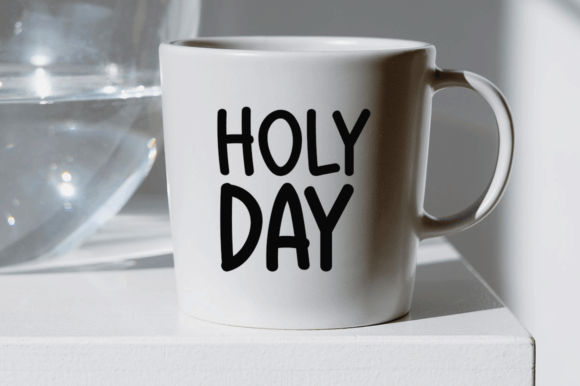
Dreaming Christmas Font: Elevate Your Holiday Projects with a Simple yet Stunning Typeface
As the holiday season approaches, designers and crafters are on the lookout for the perfect font to add a touch of festive magic to their projects. If you’re searching for a font that’s both simple and stunning, look no further than the Dreaming Christmas font. This beautiful, simple-lettered display font is designed to make your creative ideas stand out, and in this article, we’ll explore why it’s the perfect choice for your holiday projects.
What is Dreaming Christmas Font?
Dreaming Christmas font is a typeface designed specifically for the holiday season. Its simple, yet elegant lettering makes it perfect for a wide range of projects, from holiday cards and invitations to festive posters and social media graphics. The font’s clean lines and classic design ensure that it can be paired with a variety of styles, making it incredibly versatile.
Key Features of Dreaming Christmas Font
- Simple and Elegant Design: The Dreaming Christmas font boasts a simple, yet sophisticated design that exudes holiday cheer.
- Highly Versatile: This font can be used for a wide range of projects, from digital designs to print materials.
- Easy to Read: The clean lines and classic design of the font make it easy to read, even at smaller sizes.
- Perfect for Holiday Projects: The font’s festive feel makes it ideal for holiday-themed designs, but its simplicity also makes it suitable for other projects.
Why Choose Dreaming Christmas Font?
With so many fonts available, why should you choose Dreaming Christmas font for your holiday projects? Here are a few compelling reasons:
1. Universal Appeal
The Dreaming Christmas font has a universal appeal that makes it suitable for a wide range of audiences. Whether you’re designing for children or adults, this font is sure to delight.
2. Easy to Pair with Other Fonts
One of the challenges of choosing a font is finding one that pairs well with other typefaces. The Dreaming Christmas font is designed to be highly versatile, making it easy to pair with a variety of fonts to create stunning visual effects.
3. Adds a Touch of Festivity
The Dreaming Christmas font adds a touch of festivity to any project, making it perfect for holiday-themed designs. Its simple yet elegant design ensures that your projects stand out without overwhelming the viewer.
How to Use Dreaming Christmas Font in Your Projects
Now that we’ve explored the benefits of the Dreaming Christmas font, let’s discuss how to incorporate it into your projects. Here are a few ideas to get you started:
1. Holiday Cards and Invitations
Create stunning holiday cards and invitations using the Dreaming Christmas font. Its simple yet elegant design makes it perfect for formal or informal designs.
2. Festive Posters and Flyers
Add a touch of festivity to your posters and flyers with the Dreaming Christmas font. Its bold, yet elegant design ensures that your message stands out.
3. Social Media Graphics
The Dreaming Christmas font is also perfect for social media graphics. Use it to create eye-catching holiday-themed posts that engage your audience.
Tips for Getting the Most Out of Dreaming Christmas Font
To get the most out of the Dreaming Christmas font, here are a few tips to keep in mind:
1. Experiment with Sizes and Colors
Don’t be afraid to experiment with different sizes and colors to find the perfect combination for your project.
2. Pair with Complementary Fonts
Pair the Dreaming Christmas font with complementary fonts to create stunning visual effects.
3. Use for a Variety of Projects
The Dreaming Christmas font is highly versatile, so don’t be afraid to use it for a variety of projects beyond holiday-themed designs.
In conclusion, the Dreaming Christmas font is a simple yet stunning typeface that’s perfect for holiday projects. Its universal appeal, ease of use, and versatility make it an excellent choice for designers and crafters looking to add a touch of festive magic to their creations. Whether you’re designing holiday cards, festive posters, or social media graphics, the Dreaming Christmas font is sure to make your projects stand out.
Final Thoughts
The Dreaming Christmas font is a valuable addition to any designer’s toolkit. Its simple yet elegant design, versatility, and festive feel make it the perfect choice for holiday projects. So why wait? Download the Dreaming Christmas font today and start creating stunning holiday designs that delight your audience!